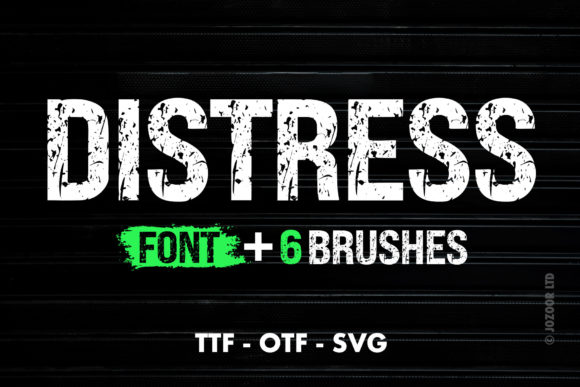
Introducing Distress College Grunge Font: Elevate Your Creative Projects with a Unique Decorative Style
In the realm of typography, fonts play a pivotal role in conveying messages, evoking emotions, and adding character to designs. For creatives looking to infuse their projects with a touch of nostalgia and rugged charm, the Distress College Grunge Font emerges as an exceptional choice. This distinctive font is not just a typeface; it’s an experience that brings a unique aesthetic to a wide array of creative endeavors. Whether you’re crafting, designing t-shirts, creating posters, working on digital designs, preparing presentations, or conceptualizing book covers, the Distress College Grunge Font is poised to transform your ideas into captivating visual stories.
The Essence of Distress College Grunge Font
The Distress College Grunge Font is characterized by its distressed, or worn, appearance, which gives it a vintage and somewhat rebellious feel. This font embodies the spirit of the grunge movement, reminiscent of the 90s, with its rough edges, irregular shapes, and a laid-back vibe. It’s perfect for designers and artists who are looking to add a layer of depth and personality to their work. The font’s uniqueness lies in its ability to blend into various themes and styles, making it incredibly versatile for a multitude of projects.
Applications of Distress College Grunge Font
The versatility of the Distress College Grunge Font makes it suitable for a vast range of applications. Here are some of the key areas where this font can make a significant impact:
- Crafting: Add a personalized touch to your DIY projects, such as homemade cards, scrapbooking, and other paper crafts.
- T-shirt Designs: Create eye-catching and memorable apparel designs that stand out with the unique grunge aesthetic.
- Posters: Whether it’s for an event, a promotion, or an informational campaign, posters designed with this font are sure to grab attention.
- Digital Designs: Enhance your social media graphics, website headers, and digital advertisements with a distinctive look.
- Presentations: Elevate your slideshows and presentations, making them more engaging and memorable.
- Book Covers: Give your book a standout cover that captures the essence of its story, especially for genres like young adult, fantasy, and indie publications.
Why Choose Distress College Grunge Font?
Choosing the right font for your project can be a daunting task, given the vast options available. However, the Distress College Grunge Font stands out for several reasons:
- Uniqueness: It offers a distinctive look that can set your project apart from others.
- Versatility: Its adaptability across various mediums and themes makes it a valuable addition to your font library.
- Emotional Connection: The grunge aesthetic often evokes a sense of nostalgia and authenticity, which can help in creating a stronger connection with your audience.
- Easy to Use: Despite its complex appearance, this font is easy to integrate into your designs, making it accessible for both beginners and seasoned designers.
Tips for Using Distress College Grunge Font Effectively
To maximize the impact of the Distress College Grunge Font, consider the following tips:
- Pair with Complementary Fonts: While the Distress font can be a focal point, pairing it with simpler fonts can enhance readability and visual hierarchy.
- Adjust Size and Color: Experiment with different sizes and colors to ensure the text is legible and visually appealing.
- Use Texture and Backgrounds: The grunge effect works well with textures and backgrounds that complement its vintage feel.
- Consider Context: Ensure the font aligns with the project’s tone and message. The grunge aesthetic might not suit all themes or audiences.
The Distress College Grunge Font is more than just a typeface; it’s a creative tool that can elevate your projects with its unique, vintage charm. Its versatility, emotional resonance, and ease of use make it an excellent choice for a wide range of applications. Whether you’re a professional designer or a DIY enthusiast, incorporating this font into your work can add a distinctive touch that captivates and engages. So, add the Distress College Grunge Font to your creative arsenal and watch your ideas come alive with a rugged, nostalgic aesthetic.